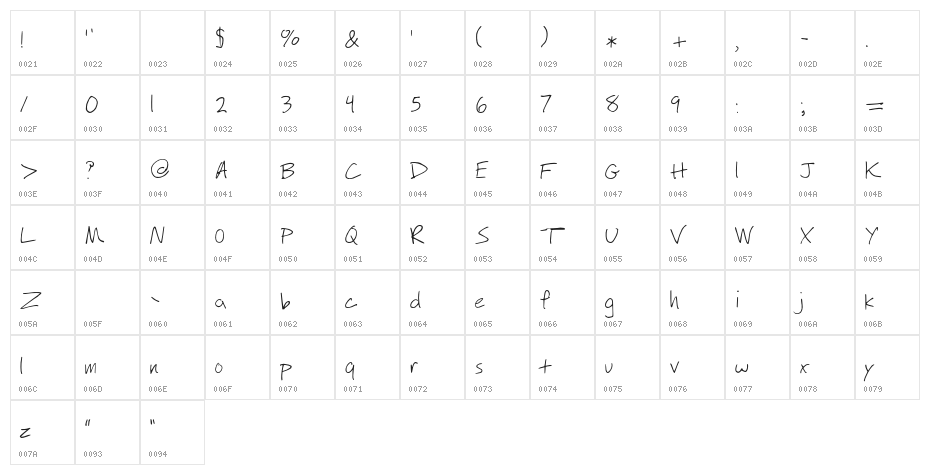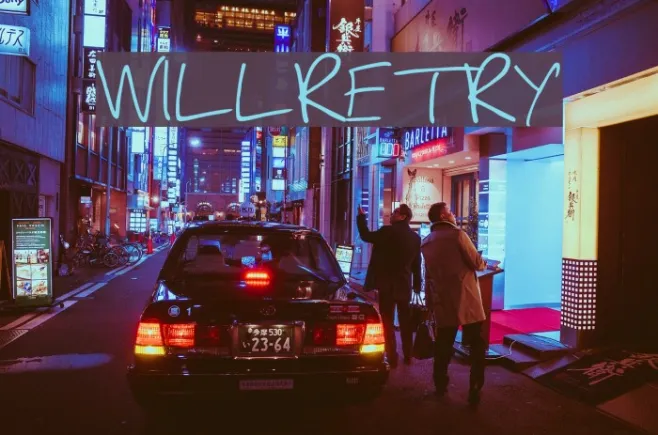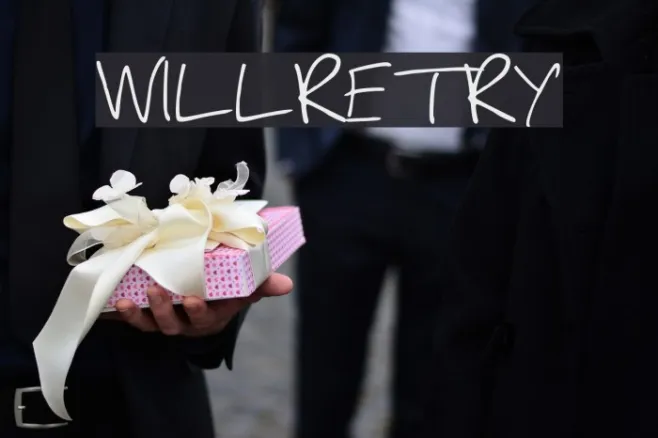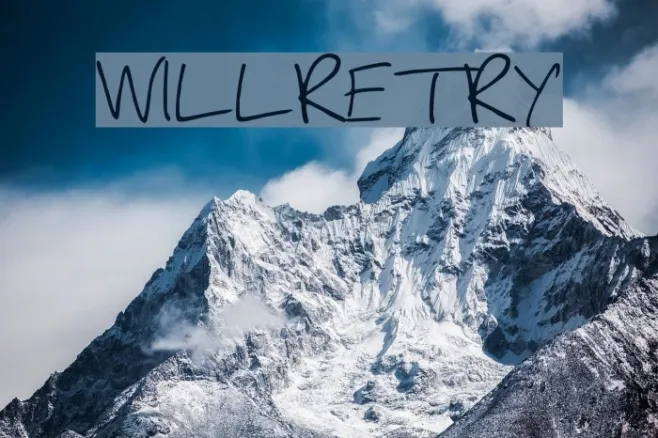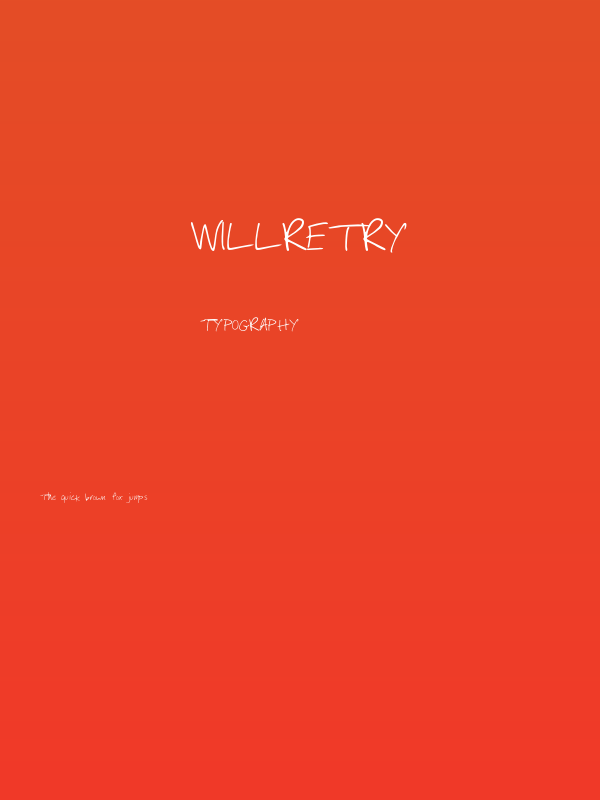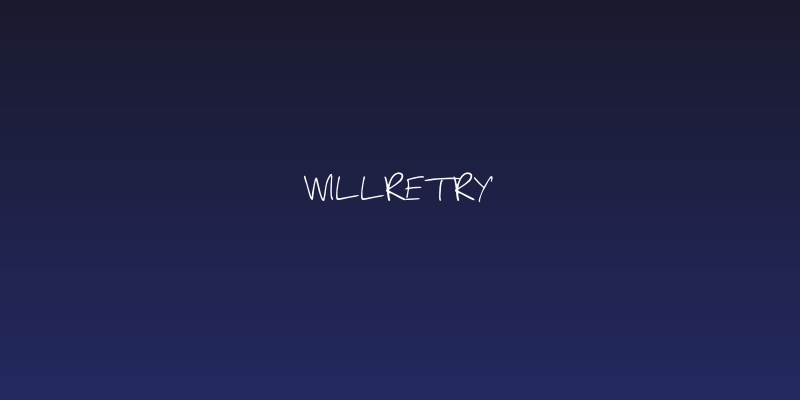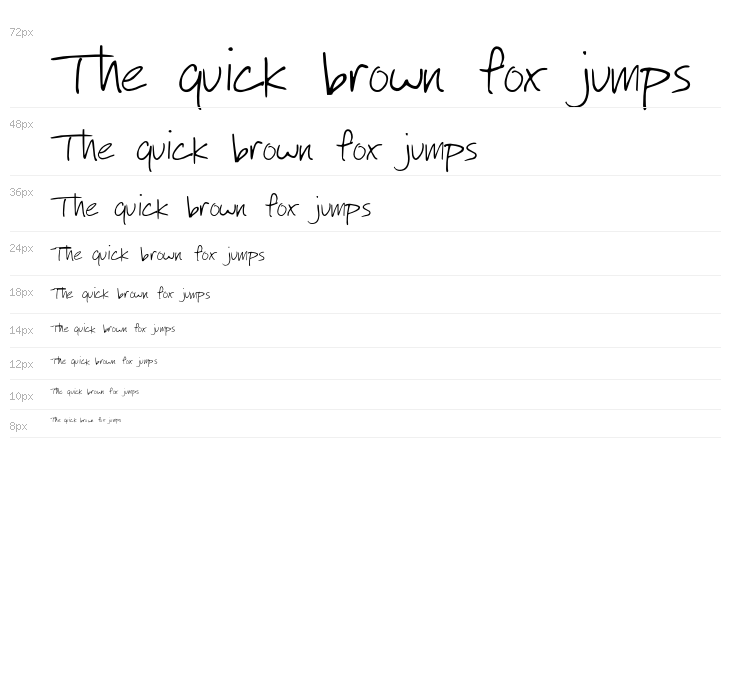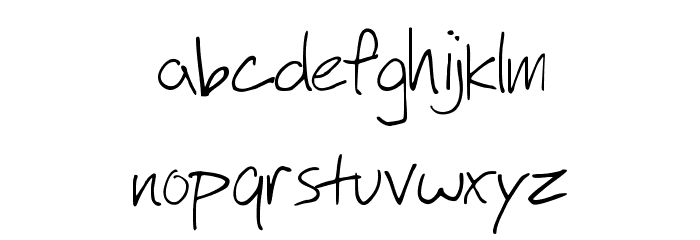
WILLRETRY Font
WILLRETRY Description
This font features a casual, handwritten style with a playful and informal appearance. The letters are slightly slanted, giving a dynamic and energetic feel. The strokes are uneven, mimicking the natural flow of handwriting, which adds a personal touch. The uppercase letters are bold and slightly larger than the lowercase, maintaining a consistent style throughout. The numbers and special characters follow the same handwritten aesthetic, ensuring uniformity across all characters. This font is ideal for projects that require a personal, friendly, and approachable look.
| Use Case | Headlines, Informal text, Personal projects |
| Proposed Projects | Ideal for greeting cards, personal notes, casual invitations, and social media graphics. |